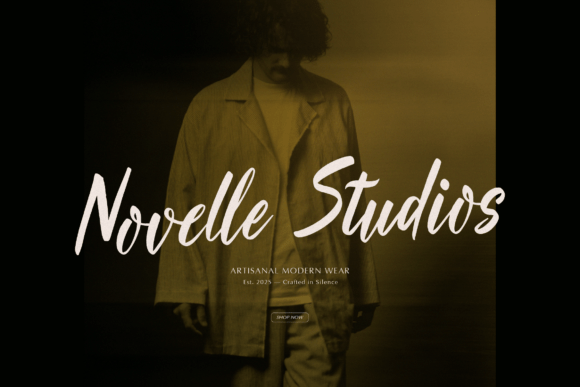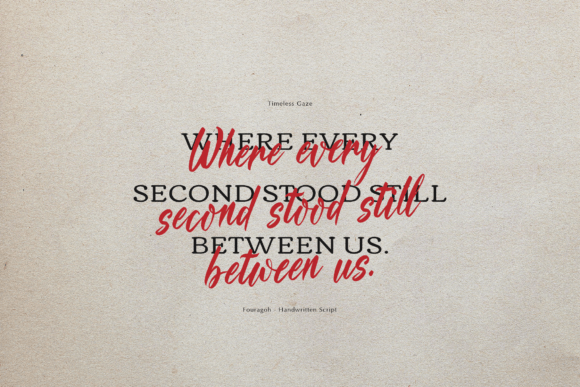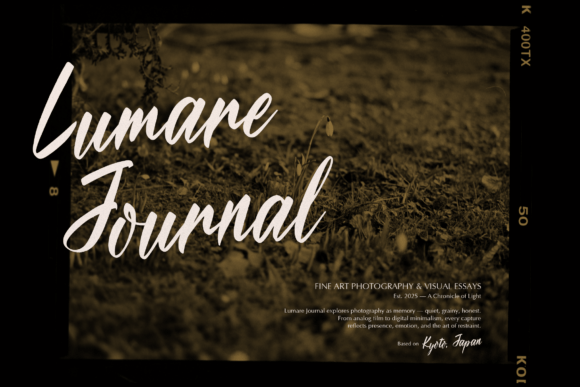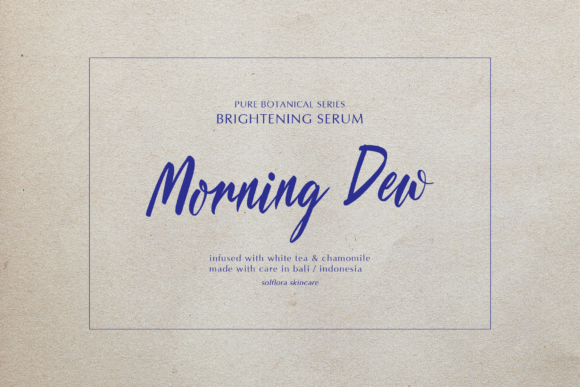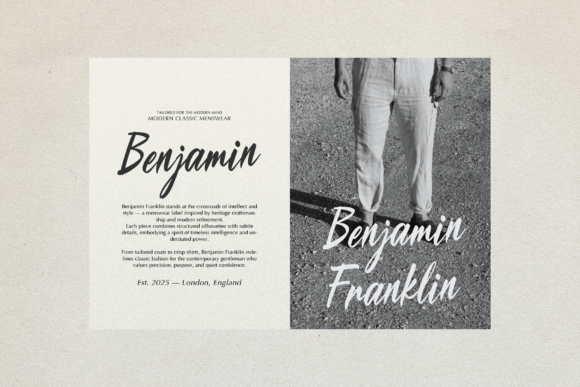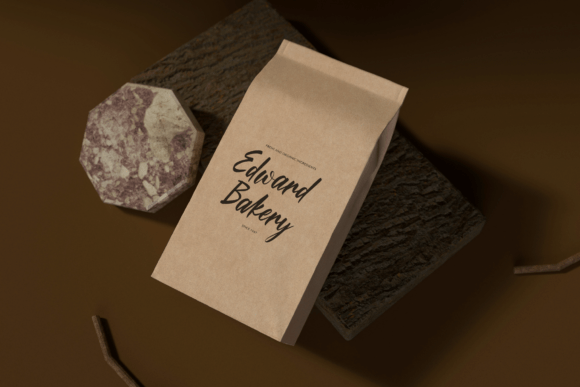
Introducing Fouragoh Font: The Elegant Script Font for Your Creative Projects
Are you a designer or crafter looking for a font that exudes elegance and sophistication? Look no further than Fouragoh Font, a beautiful script font that is perfect for a wide range of creative projects. From logos and branding to homeware designs, product packaging, and more, Fouragoh Font is the ideal choice for adding a touch of class and refinement to your work.
What is Fouragoh Font?
Fouragoh Font is a stunning script font that features elegant, flowing lines and a sophisticated aesthetic. Its unique and distinctive style makes it perfect for designers and crafters who want to add a touch of luxury and glamour to their projects. Whether you’re working on a logo, a branding project, or a product design, Fouragoh Font is sure to impress.
What Can I Use Fouragoh Font For?
Fouragoh Font is incredibly versatile and can be used for a wide range of creative projects, including:
- Logos and branding projects: Create a lasting impression with a custom logo or branding project that features Fouragoh Font.
- Homeware designs: Add a touch of elegance to your homeware designs, such as cushions, tote bags, and mugs.
- Product packaging: Make your product packaging stand out with Fouragoh Font, perfect for labels, tags, and more.
- Mugs and ceramics: Create beautiful, one-of-a-kind mugs and ceramics with Fouragoh Font.
- Quotes and posters: Add a touch of sophistication to your quotes and posters with Fouragoh Font.
- Shopping bags: Create stylish and reusable shopping bags with Fouragoh Font.
- T-shirts and apparel: Design custom t-shirts and apparel with Fouragoh Font.
- Book covers and journals: Add a touch of elegance to your book covers and journals with Fouragoh Font.
- Name cards and invitation cards: Create beautiful, custom name cards and invitation cards with Fouragoh Font.
- Greeting cards and labels: Add a touch of sophistication to your greeting cards and labels with Fouragoh Font.
- Photography and watermark: Use Fouragoh Font as a watermark for your photography or add it to your photos for a unique touch.
- Special events: Create custom designs for special events, such as weddings, birthdays, and more with Fouragoh Font.
Why Choose Fouragoh Font?
There are many reasons why Fouragoh Font is the perfect choice for your creative projects. Here are just a few:
- Elegant and sophisticated: Fouragoh Font features elegant, flowing lines and a sophisticated aesthetic that is sure to impress.
- Versatile: Fouragoh Font can be used for a wide range of creative projects, from logos and branding to homeware designs and product packaging.
- Unique: Fouragoh Font has a unique and distinctive style that will set your projects apart from the rest.
Tips for Using Fouragoh Font
Here are a few tips for using Fouragoh Font in your creative projects:
- Use it sparingly: Fouragoh Font is a statement font, so use it sparingly to make a lasting impression.
- Pair it with other fonts: Experiment with pairing Fouragoh Font with other fonts to create a unique and interesting look.
- Adjust the size and color: Adjust the size and color of Fouragoh Font to fit your project’s needs.
- Experiment with different effects: Experiment with different effects, such as bolding or italicizing, to add emphasis to your text.
Fouragoh Font is a stunning script font that is perfect for designers and crafters who want to add a touch of elegance and sophistication to their creative projects. With its elegant, flowing lines and sophisticated aesthetic, Fouragoh Font is sure to impress. Whether you’re working on a logo, a branding project, or a product design, Fouragoh Font is the ideal choice. So why wait? Download Fouragoh Font today and start creating beautiful, one-of-a-kind projects that showcase your unique style and creativity.